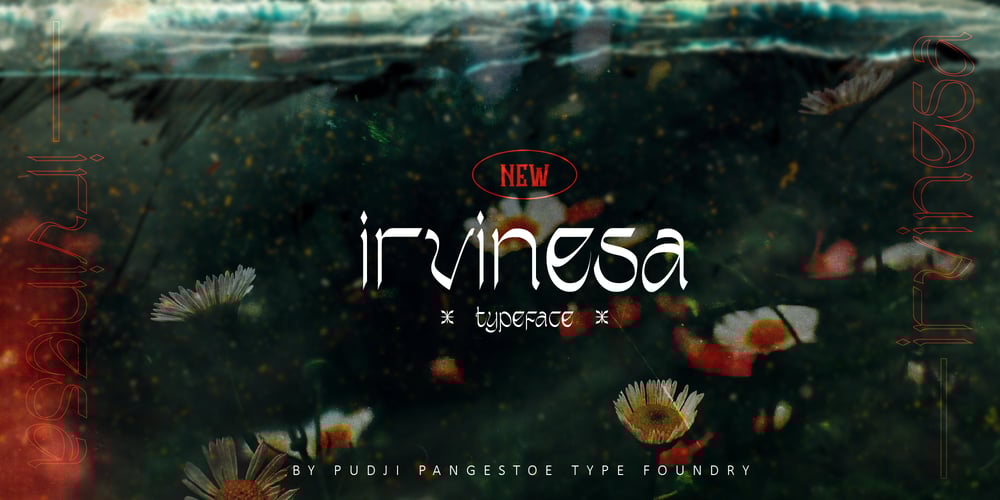
Irvinesa Font Family was designed by Faishal Mahdy and published by Shaltype Co. Irvinesa contains 1 styles and family package options. IRVINESA is a hype Font that’s well-produced by hand and generated into a pure form, that will be best when used in any placement like logo, poster, t-shirts, or any display.—Build manually by hand, and reform into a clean Typeface. Natural stroke from original hand-lettering. It can be used for just Titles or even writing.—In this font, you will get:Over 226 glyphs19 Ligatures in 7 OpenType featuresSupport for 65 languages.—Get IRVINESA now!It will be best used for any design requirement, many fonts will come with a unique concept.—Thank you!Best Regards,PUDJI PANGESTOE STUDIOS